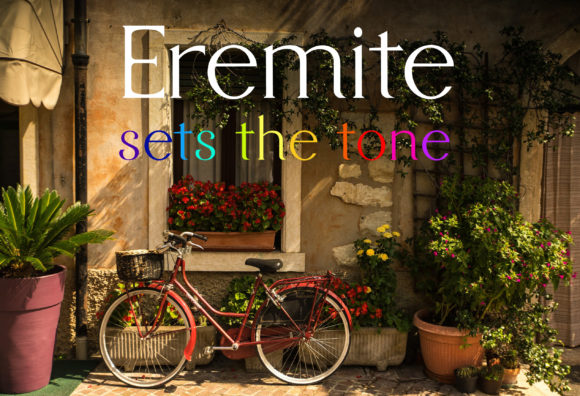
Dive into the realm of poetic elegance with Eremite Font! Crafted with meticulous care by Perdita Goodenow, this serif font exudes a delicate touch and timeless beauty, promising to transform your creative endeavors into masterpieces of written art.
Step into a world where words dance with grace and fluidity, whispered by the gentle breeze of Eremite's curves. Its refined structure and exquisite details evoke a sense of nostalgia, inviting you to immerse yourself in the romantic depths of classic literature. With Eremite as your trusted companion, your poems will blossom into radiant expressions of love, longing, and heartfelt emotions.
Unleash the captivating allure of Eremite in your headlines, making them magnetic beacons that draw eyes and ignite imaginations. Design titles that shimmer with an ethereal glow, capturing the essence of untold stories waiting to unfold. Elevate your magazines with a touch of sophistication, allowing Eremite's delicate strokes to guide readers through oceans of knowledge and inspiration.
Let Eremite's graceful lines and elegant serifs enhance your logos, imbuing them with a timeless charm that transcends trends. Its versatility extends to any creative design seeking a whisper of elegance, a touch of romance, or a dash of classic beauty.